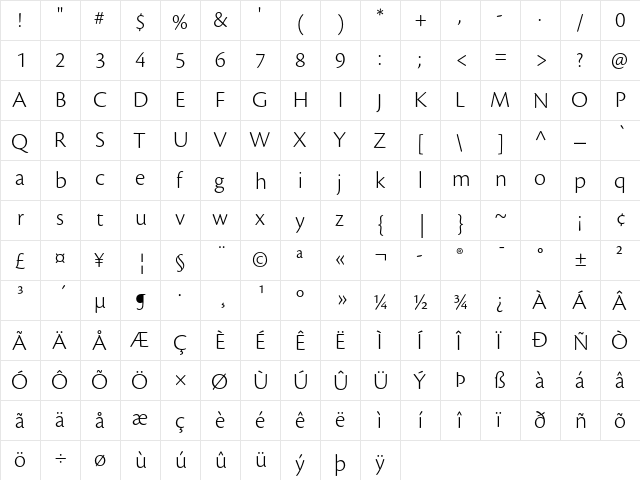
Cronos Pro Light
Light ·  Robert Slimbach ·
Design Context for Cronos Pro Typeface
Cronos Pro takes a measured approach to typography — its balanced proportions and neutral character make it a reliable workhorse for both digital and print work. Its slender proportions lend an understated elegance to any composition.